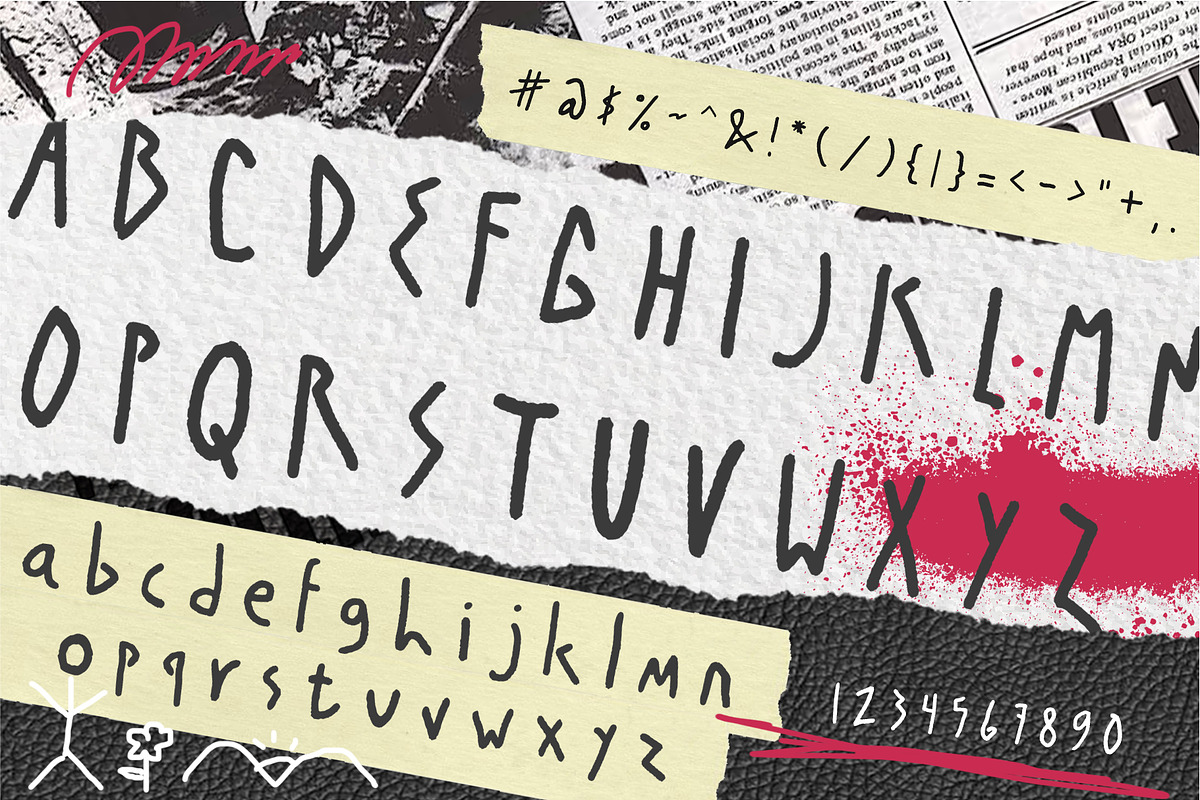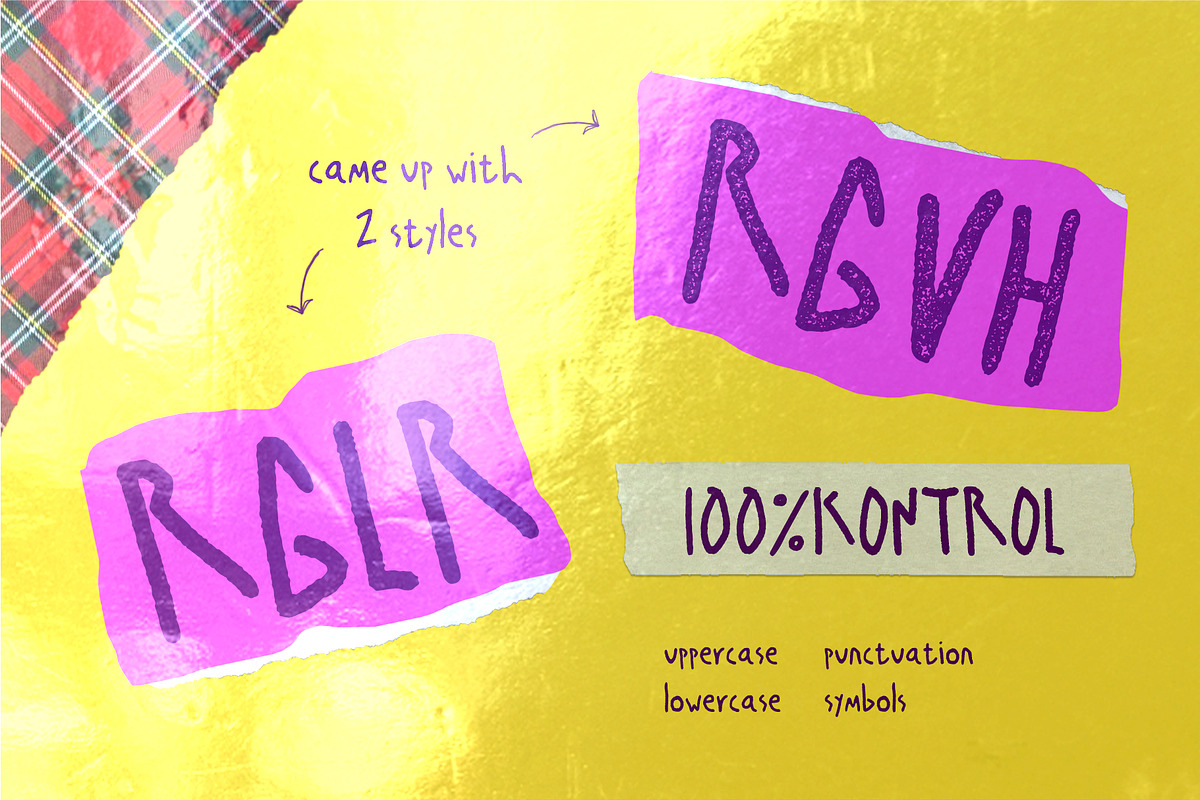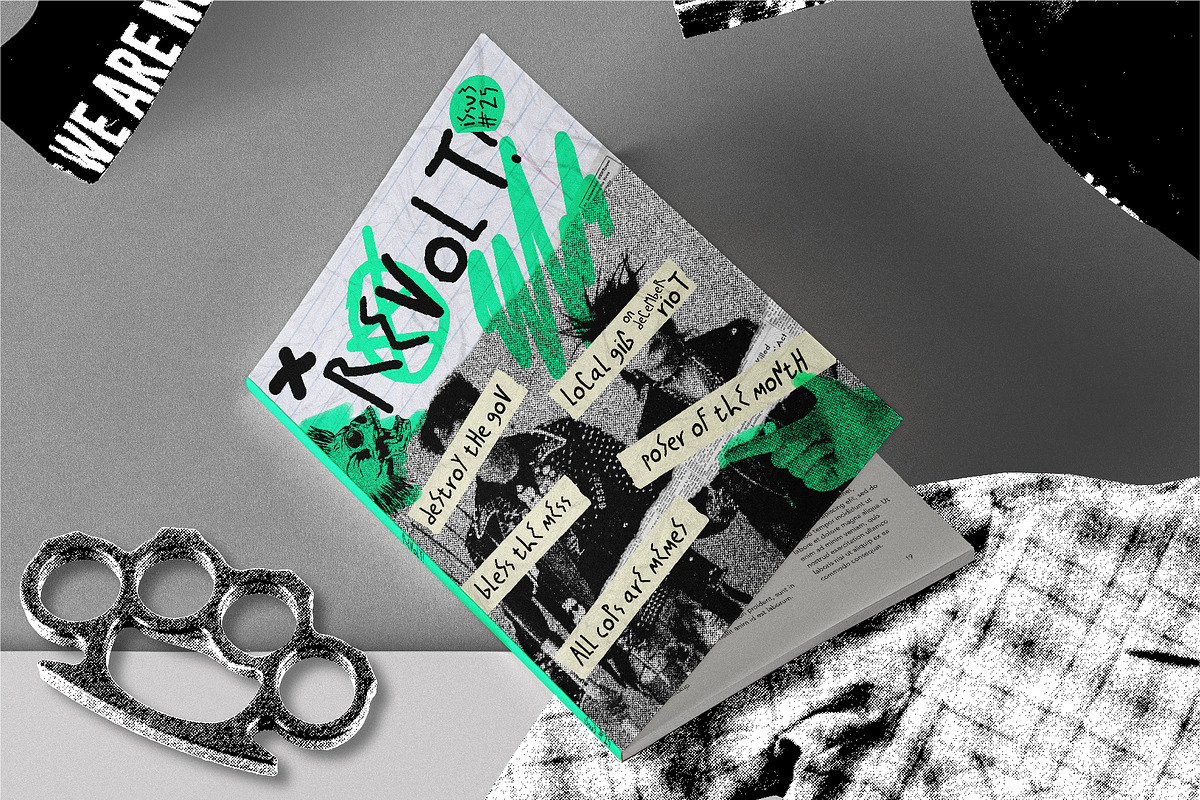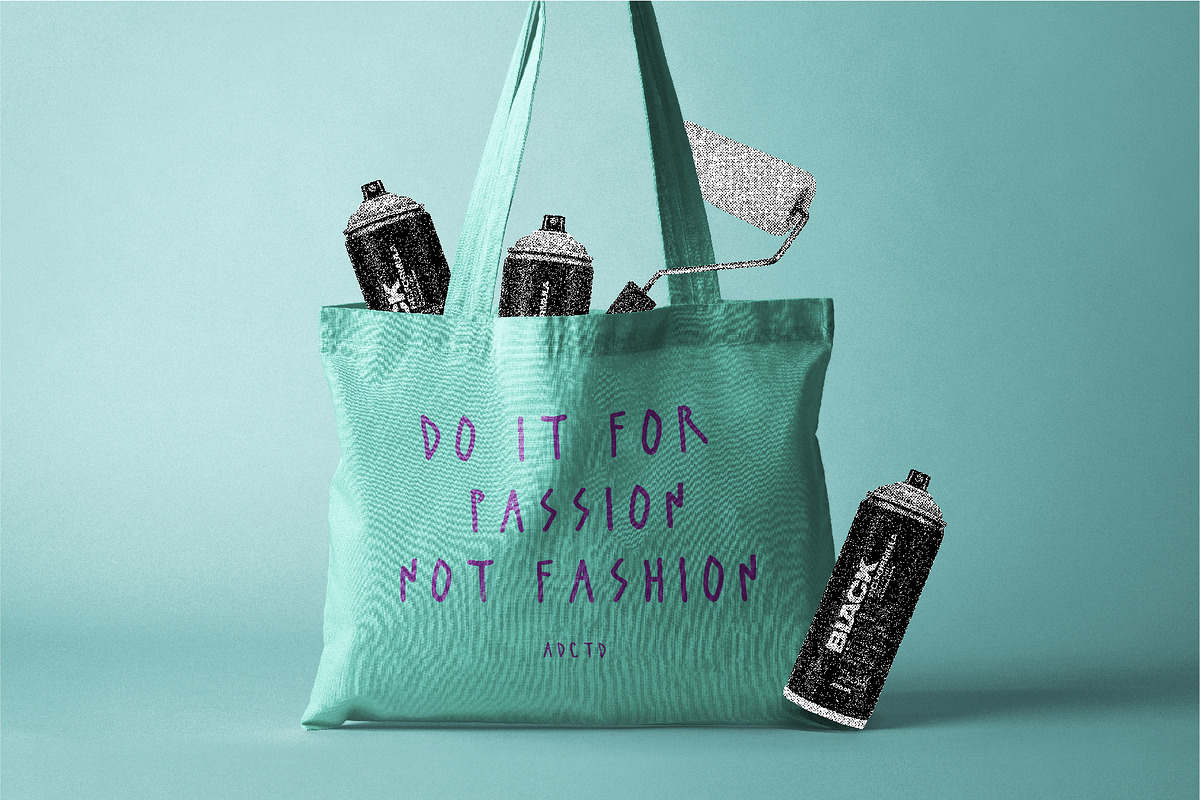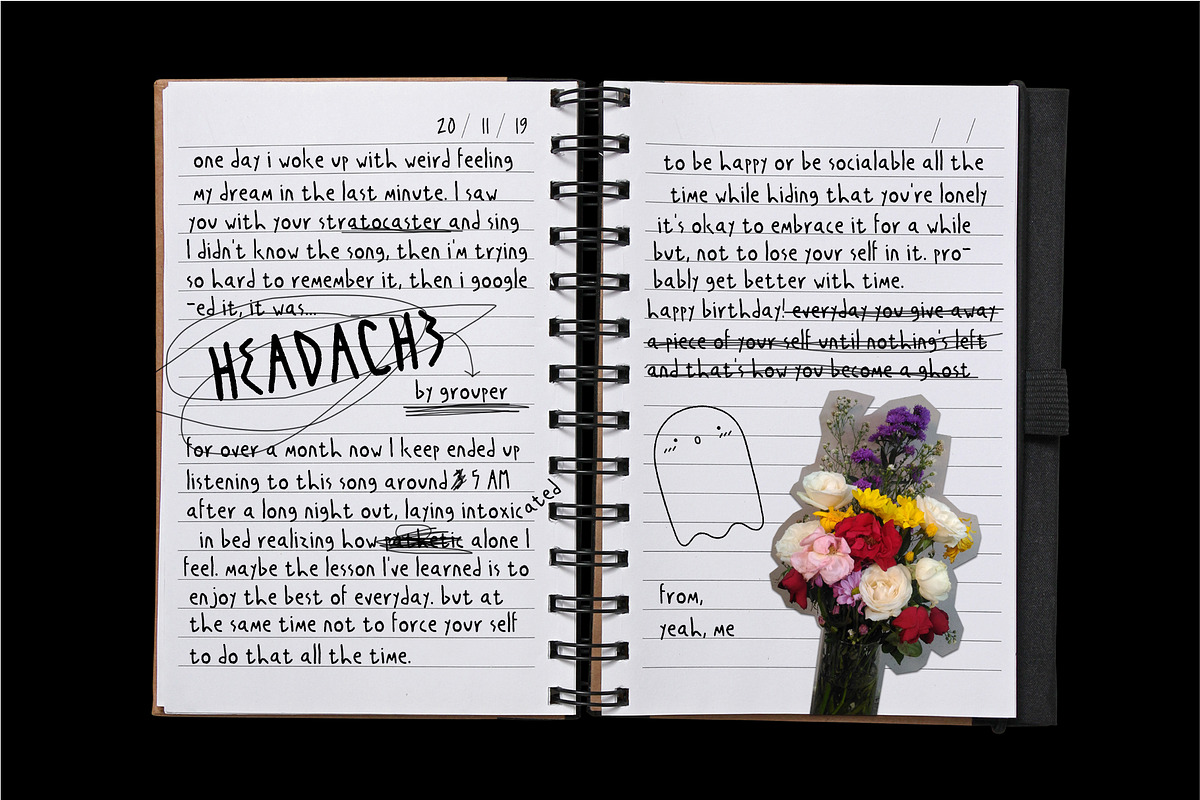
100% Kontrol - Handwritten Font
100% Kontrol is a whatever typeface. Despite the imperfect anatomy, this font is perfect for organic-like handwritten font for notes, quotes, headlines, products, packaging, and whatever you want. Available in 2 styles: Regular and Rough.
100% Kontrol is inspired by BRNDLS song with the same title. The song's spirit is about independency and free individual that doesn't care about any negative opinion that will bring them down from chasing their dream. This spirit too that bring you and us here, cheers for us all!
More than 200+ glyphs was crafted indside 100% Kontrol
Uppercase & lowercase
- Uppercase & lowercase
- Punctuation & symbol